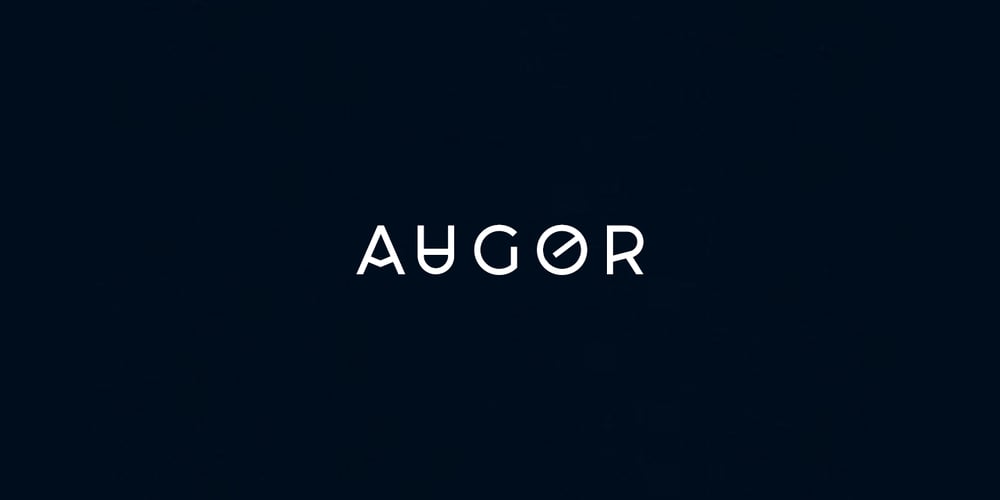
Augur Font Family was designed by Jean Johnson and published by Designova. Augur contains 6 styles and family package options. A fuel for your design inspiration that can ignite your next design project, AUGOR is a truly unique all-caps display typeface particularly dedicated to display/headline/branding/logotype usage. AUGOR will be best suited for creating nicely-looking logos, brand identities and headlines. Just see the demo images above for an abstract idea of the capability of this typeface.